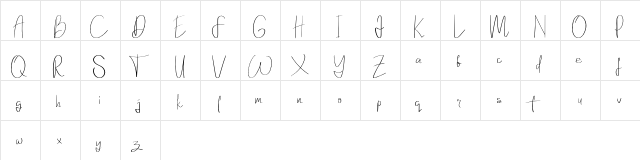
Elanor Regular
| Foundry | Gumacreative |
| Designer | Gumacreative |
Design Context for Elanor Typeface
Elanor is a composed and adaptable typeface that performs quietly and consistently across a wide range of design contexts.